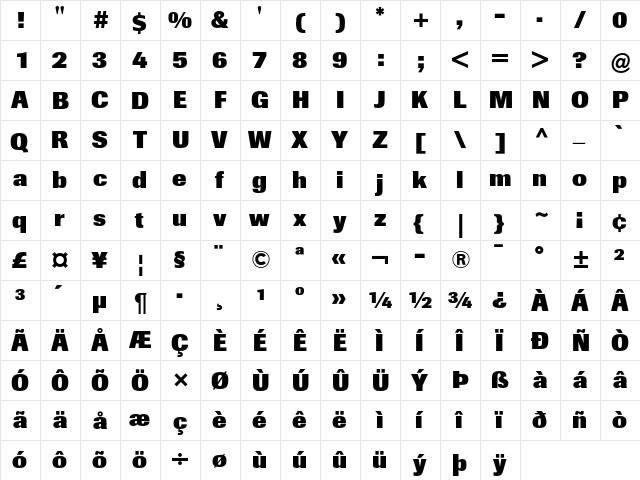
Berthold Imago Extra Bold
Design Context for Berthold Imago Typeface
Berthold Imago is a composed and adaptable typeface that performs quietly and consistently across a wide range of design contexts. Its bold stroke weight gives it real presence on the page.
Pro Tip: Pair Berthold Imago with a font of contrasting weight or personality to build a more expressive typographic hierarchy.